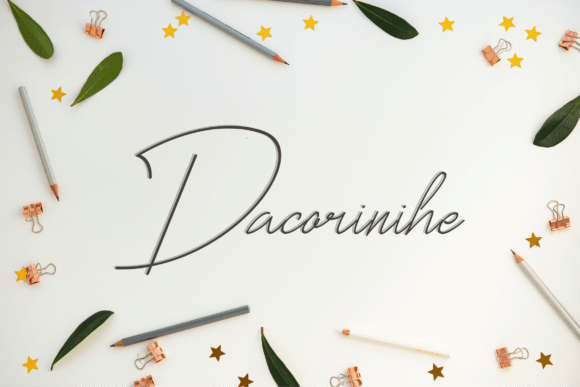
The Perfect Blend of Elegance and Modernity: Dacorinihe Font
Have you ever been working on a project, and suddenly a spark of creativity hits you? You envision the perfect design, with elegant lines, beautiful curves, and a touch of sophistication. That’s exactly what happens when you discover the Dacorinihe Font.
Masterfully designed to become a true favorite, the Dacorinihe Font combines classy calligraphic influences with a fresh, contemporary feel. Whether you’re a professional designer or a creative enthusiast, this font is sure to elevate your projects to new heights. With its unique blend of elegance and modernity, the Dacorinihe Font is a valuable addition to any designer’s toolkit, allowing you to bring your most ambitious ideas to life.
Dacorinihe Font Key Features
- Font Family: Dacorinihe is a unique, handwritten font family.
- Character Count: Includes a wide range of characters, including uppercase and lowercase letters, numbers, and punctuation.
- Unique Characteristics: Dacorinihe features a distinctive, handwritten style with a touch of elegance and sophistication.
Dacorinihe Font Review
I recently had the chance to work with the Dacorinihe Font, and I must say it was an interesting experience. Here are my thoughts on what works well and what doesn’t.
- The Dacorinihe Font has a unique aesthetic that’s perfect for creating a bold and eye-catching design. Its distinctive flair and swashes can add a touch of elegance to any layout.
- The font is highly customizable, with a wide range of weight options and stylistic sets to choose from. This makes it easy to find the perfect combination to suit your design needs.
- Overall, the Dacorinihe Font is well-suited for headings, titles, and other display text where you want to make a statement.
- The font may be too bold or overpowering for body text, making it difficult to read in large blocks of text.
- The customization options, while extensive, can be overwhelming for users who are new to font design.
- Some users may find the font’s flair and swashes to be distracting or too ornate for their taste.
The Dacorinihe Font is a great choice for designers who want to add a touch of personality to their designs. While it may have some limitations, its unique aesthetic and customization options make it a valuable addition to any font library.
The Dacorinihe Font is ideal for use in creative projects, such as:
- Graphic design and branding
- Typography-based art and illustration
- Print and digital marketing materials
The Great Vibes Font is a beautiful script font that is perfect for creating a friendly and approachable feel in designs. It is ideal for use in invitations, wedding stationery, and other creative projects. Great Vibes Font has a more elegant and sophisticated feel compared to Dacorinihe Font, which is more playful and quirky. It is also more versatile and can be used in a wider range of designs.
The Carolyna Pro Font is a modern script font that is perfect for creating a luxurious and high-end feel in designs. It is ideal for use in branding, packaging, and other premium projects. Carolyna Pro Font has a more refined and polished feel compared to Dacorinihe Font, which is more casual and laid-back. It is also more suitable for use in larger font sizes.
The Alex Brush Font is a elegant script font that is perfect for creating a sophisticated and refined feel in designs. It is ideal for use in invitations, wedding stationery, and other creative projects. Alex Brush Font has a more classic and timeless feel compared to Dacorinihe Font, which is more modern and trendy. It is also more suitable for use in smaller font sizes.